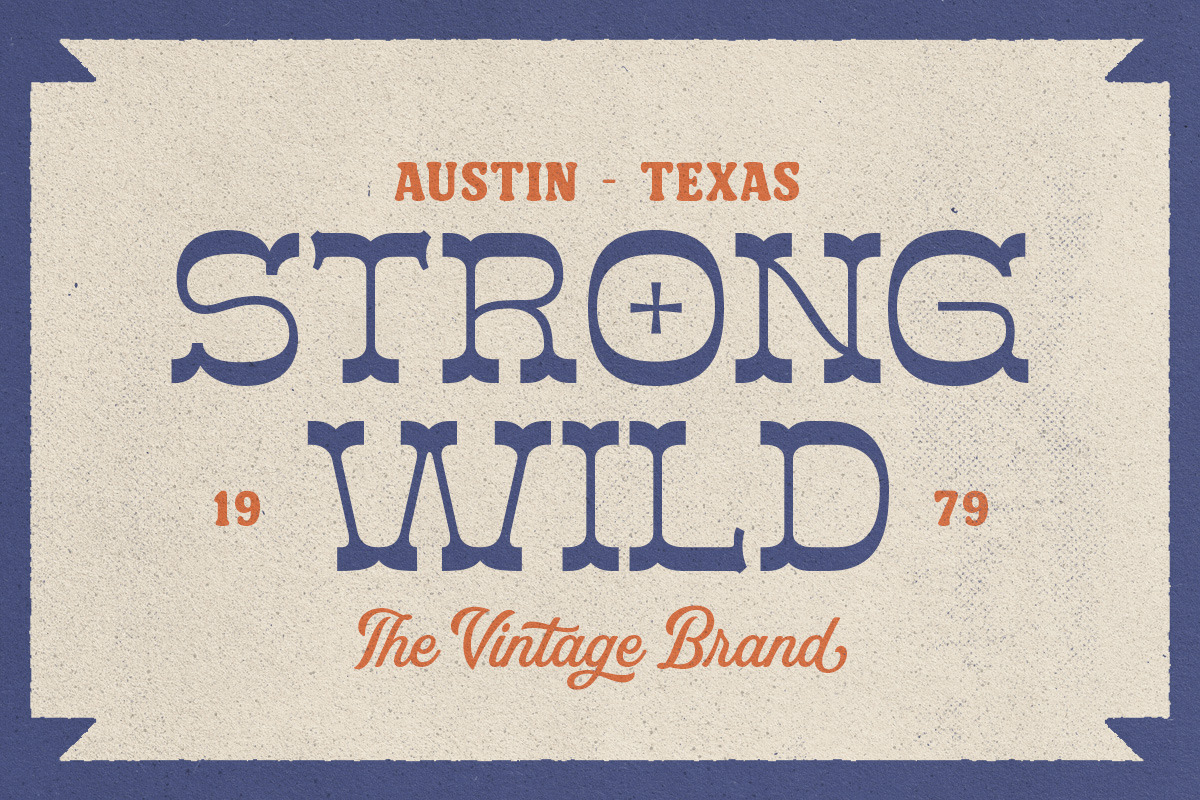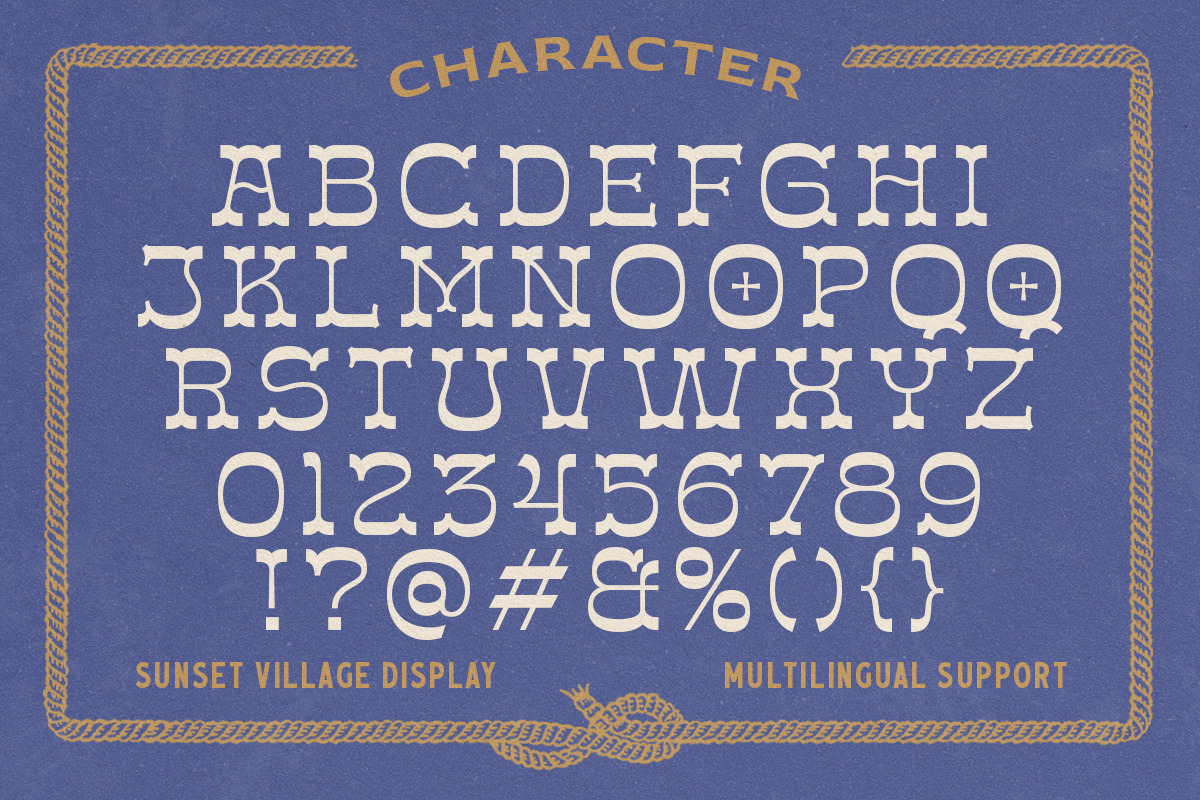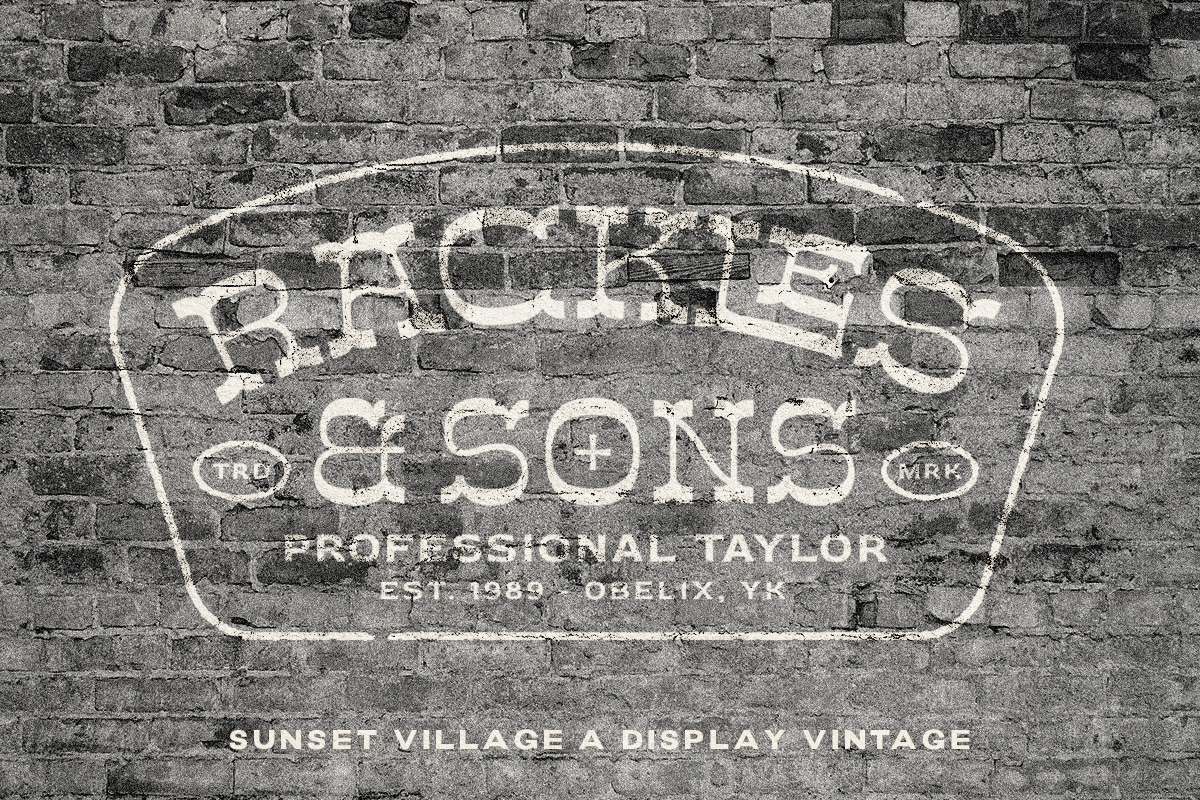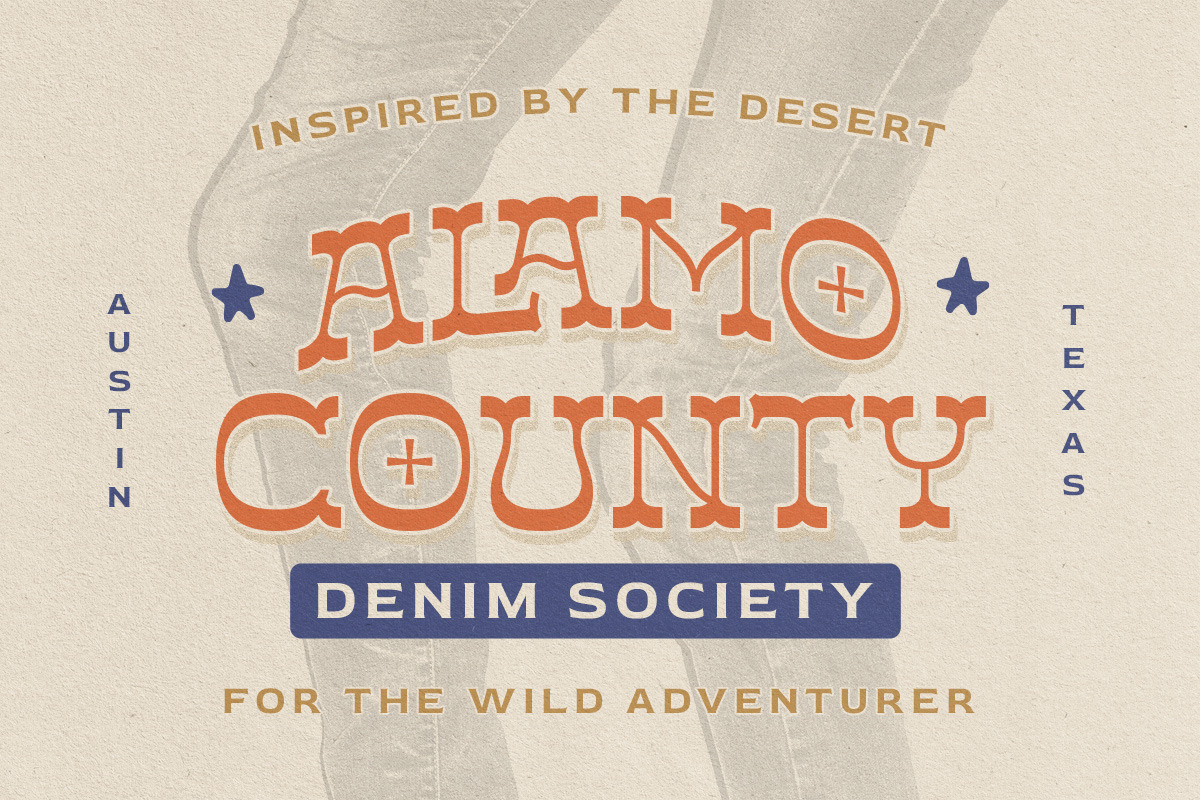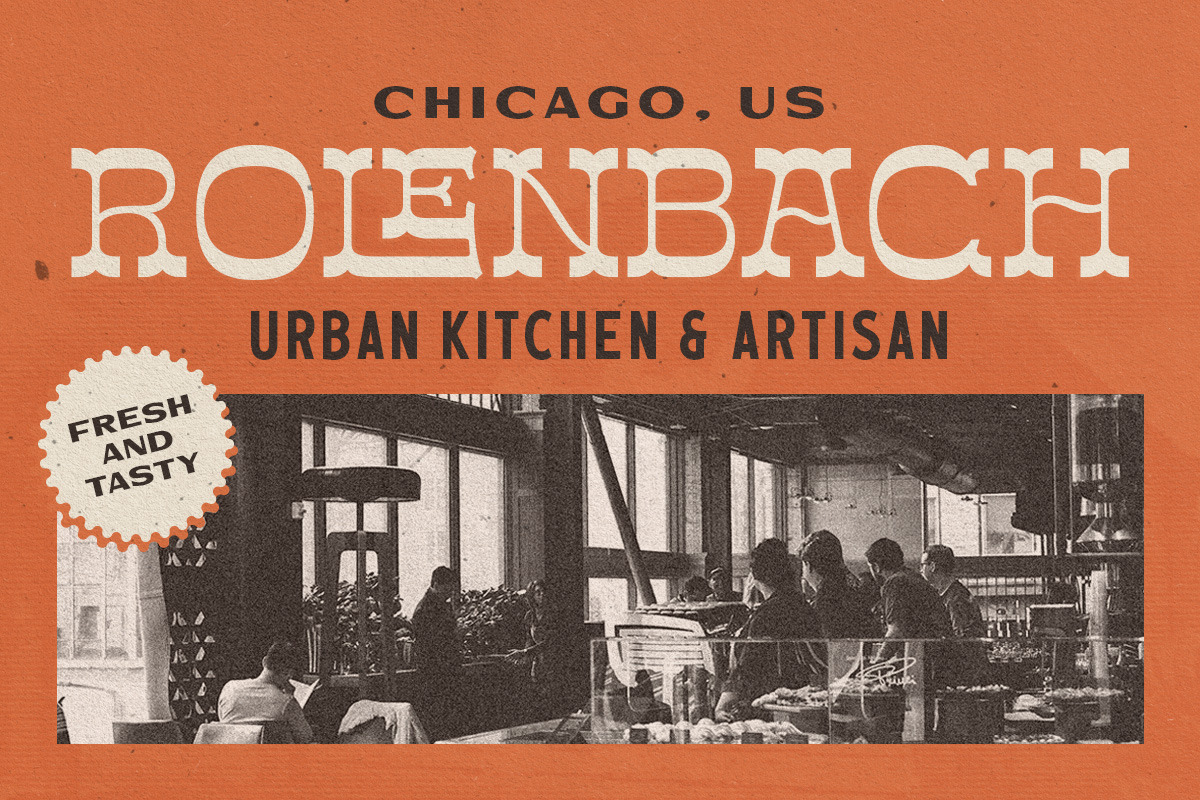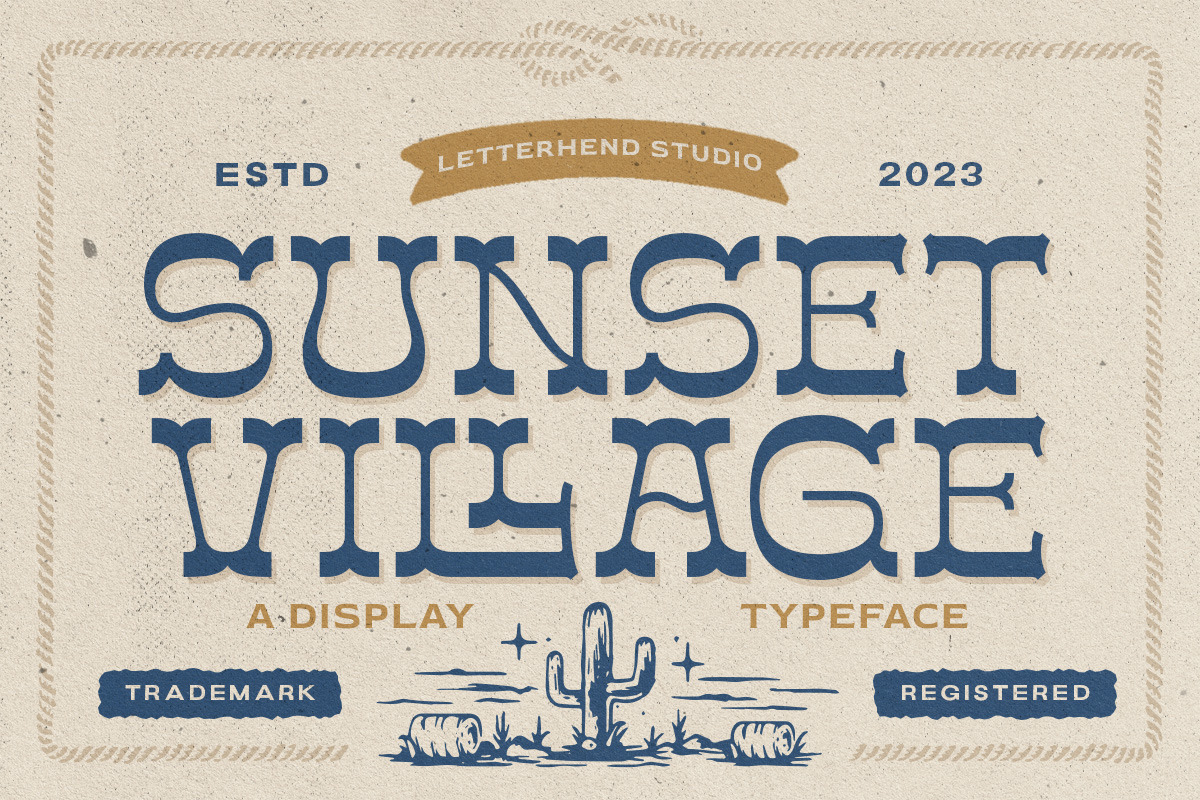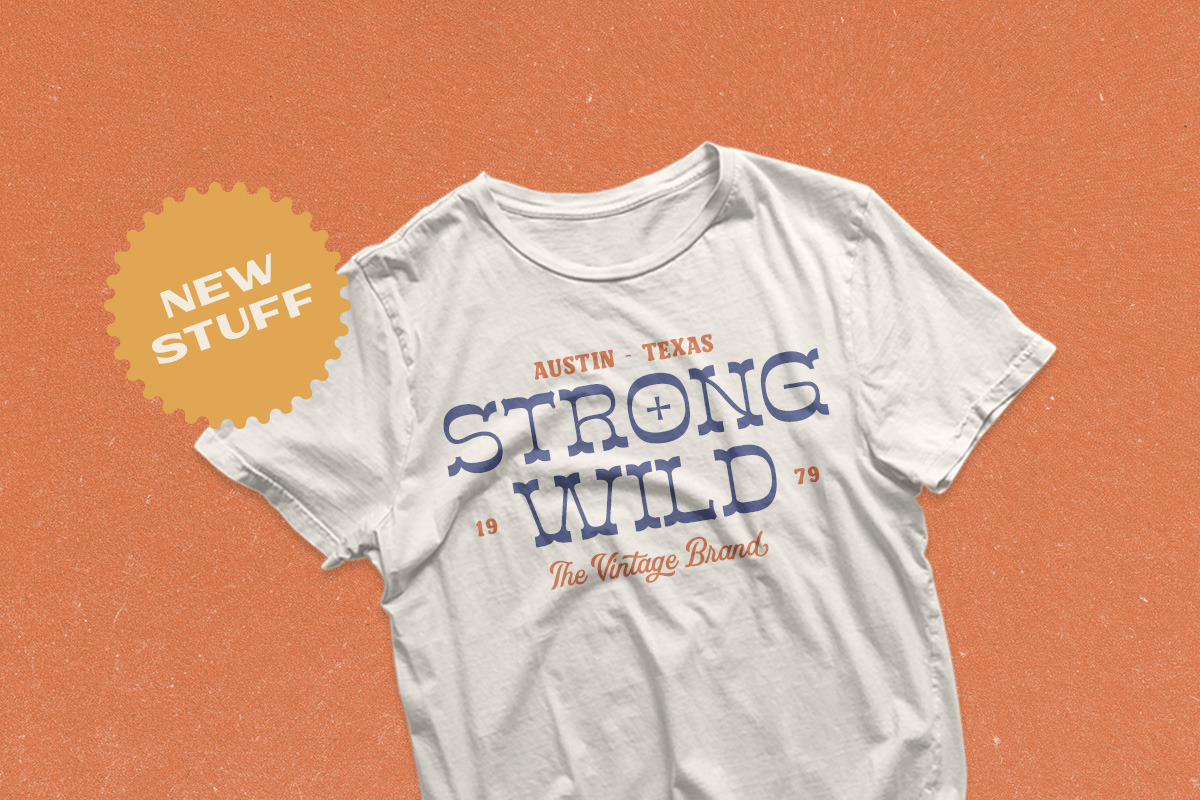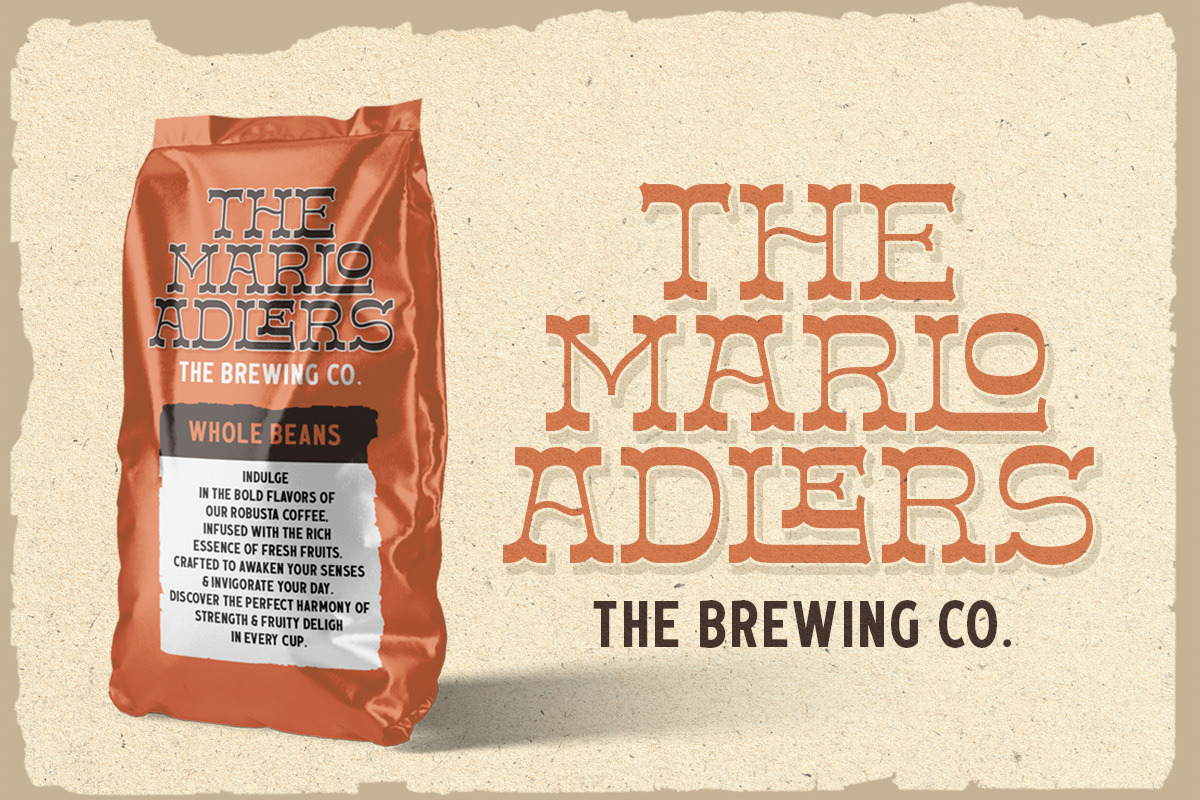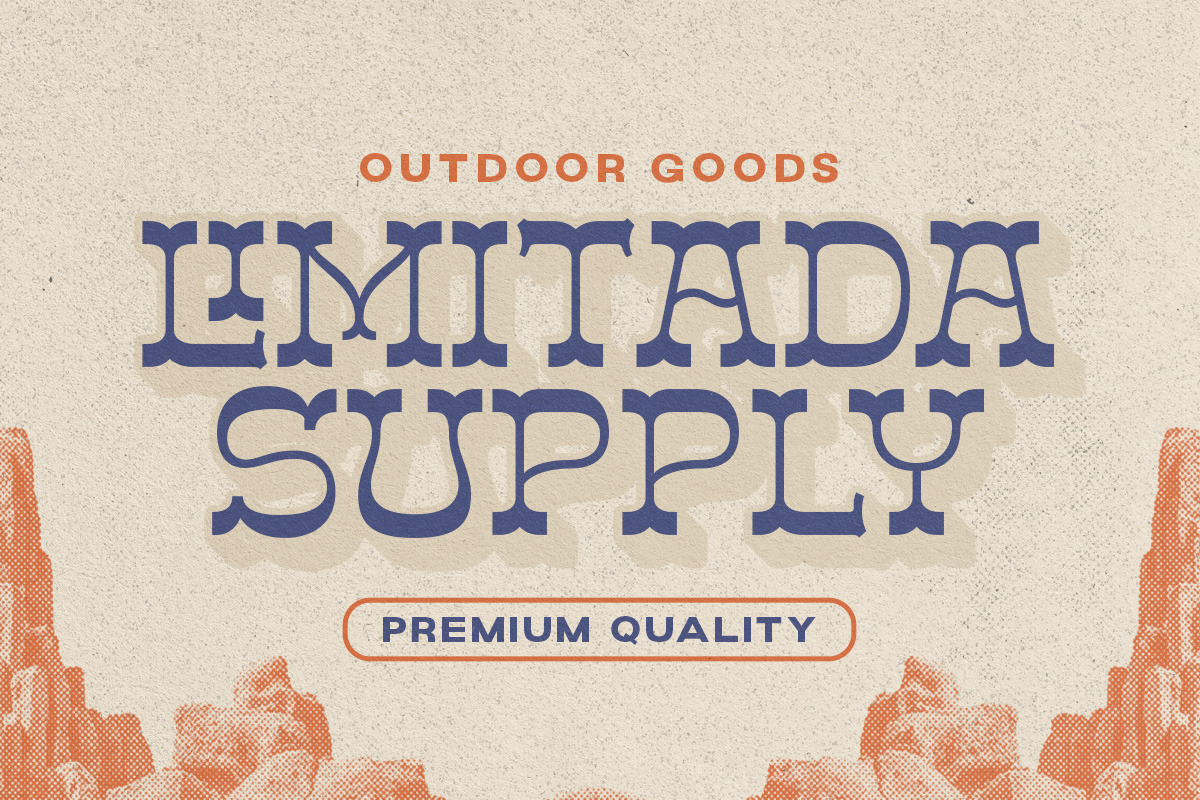
Sunset Village - Display Typeface
Introducing, Sunset Village! A Classic Wild West style font, ready to rock! Suitable for design needs with a touch of classic western and also suitable to be applied especially in logo, and the other various formal forms such as invitations, labels, logos, magazines, books, greeting / wedding cards, packaging, fashion, make up, stationery, novels, labels or any type of advertising purpose.